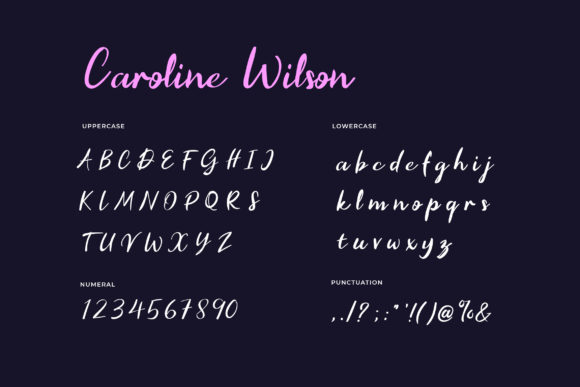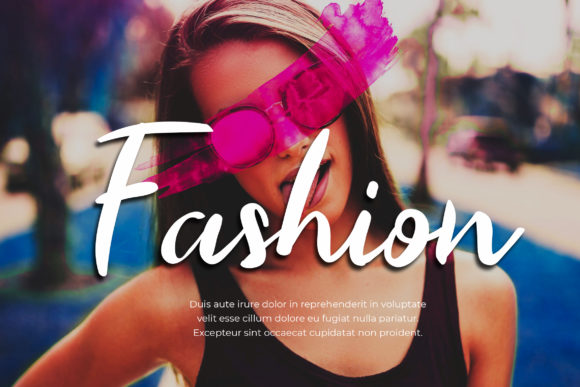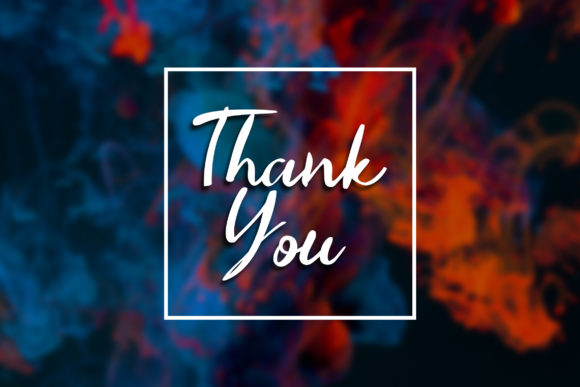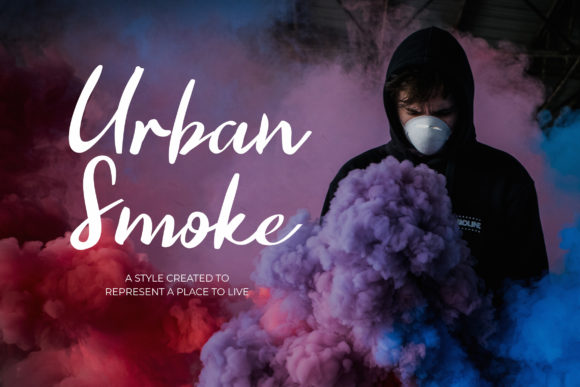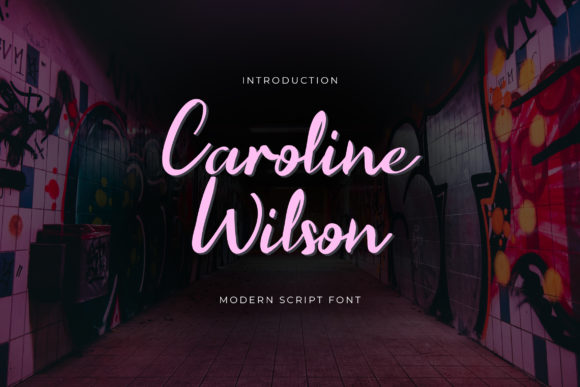
The Sweet Charm of Caroline Wilson Font: A Designer’s Delight
I’ll never forget the time I was working on a branding project for a trendy coffee shop. I had the logo concept nailed, but I was struggling to find the perfect font to complement it. That’s when I stumbled upon Caroline Wilson Font. Its sweet and flowing script letters immediately caught my eye, and I knew I had found the one. In this article, I’ll share my experience with this beautiful font, its features, and how to make the most of it in your designs.
An Honest Review of Caroline Wilson Font
So, what makes Caroline Wilson Font so special? Here are some things I love about it:
- ✨ Sweet and flowing script letters: Caroline Wilson Font has a trendy vibe that’s perfect for modern designs.
- ✅ Versatile: It can be used for both formal and informal designs, making it a great addition to your font library.
- ✅ Easy to read: Despite its script nature, Caroline Wilson Font is surprisingly legible, even at smaller sizes.
Of course, no font is perfect, and Caroline Wilson Font has a few quirks:
- 🤔 Limited kerning options: While the font has decent kerning, it might not be suitable for very large text blocks or body text.
- ⚠️ Some letters may appear too connected: Depending on your design, you might find that some letters, like “e” and “a”, appear too connected. This can be adjusted with letter spacing, but it’s something to keep in mind.
The Story Behind Caroline Wilson Font
Caroline Wilson Font was designed with the intention of creating a beautiful, modern script font that’s both elegant and approachable. The designer aimed to craft a font that’s versatile enough to be used in a variety of design contexts, from wedding invitations to brand identities.
| Font Name | Caroline Wilson Font |
| Author | uicreativenet |
| What makes Caroline Wilson Font unique? | Caroline Wilson Font stands out with its sweet and flowing script letters, making it perfect for modern designs that require a touch of elegance. |
| Is Caroline Wilson Font suitable for body text? | While Caroline Wilson Font is surprisingly legible, it’s best suited for headlines, titles, and short paragraphs. For longer text blocks, consider using a more traditional serif or sans-serif font. |